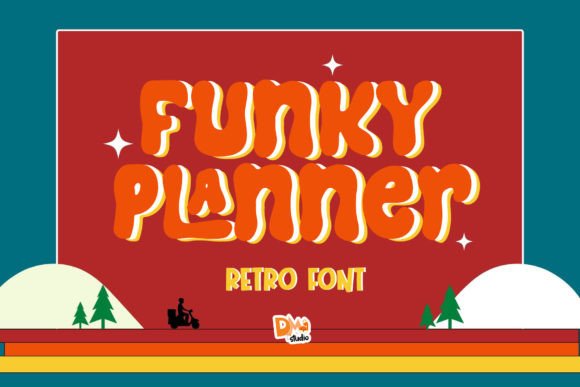
Journey into a realm of boundless creativity with Funky Planner Font, a display font that dances off the page with its playful and spirited personality. This remarkable font is the brainchild of dmletter31, a visionary artist who has captured the essence of joy and free expression in each stroke.
Funky Planner Font is not just a collection of letters; it's an invitation to let your imagination run wild. With its whimsical and groovy vibe, this font transforms your digital creations into captivating works of art. From eye-catching headings to playful logos, from vibrant social media posts to stylish invitations, Funky Planner Font adds a touch of magic to every project.
Step into a world where imagination knows no bounds, where your creations come alive with personality and charm. Let Funky Planner Font be your guide as you explore the limitless possibilities of digital design. Seize the opportunity to make a statement, to leave a lasting impression, and to spread joy with every word you craft.